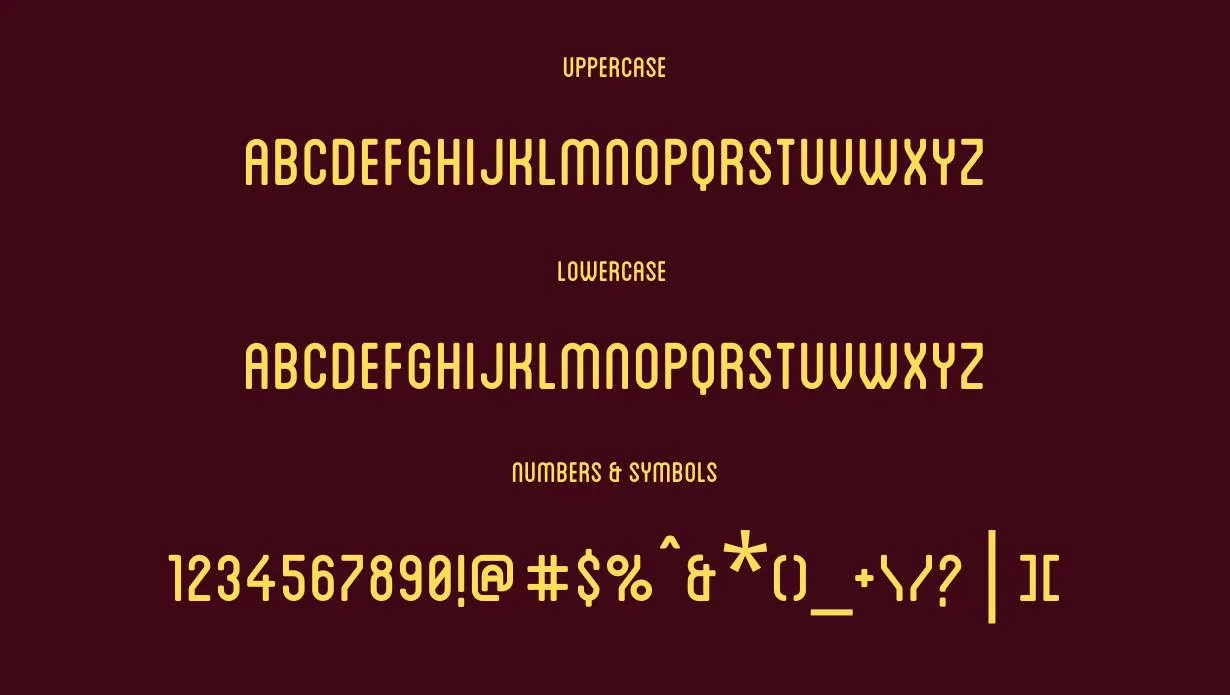
Elevate your text with Blanch Caps Font. It’s vintage charm and classic capital letterforms add a touch of sophistication to your designs.
| Name | Blanch Caps Font |
| Designer | Atipus |
Ideal for formal invites or any project that calls for a hint of old-world elegance, Blanch Caps Font ensures your words exude timeless beauty. Elevate the aesthetic appeal and precision of your design by pairing the typeface style with other fonts, such as the squirrel font, available on our website.